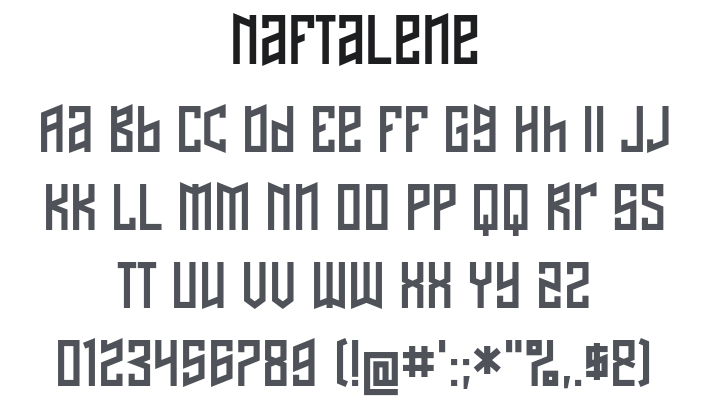
Naftalene Font
About Naftalene
Naftalene is a razor-sharp, bold geometric industrial display typeface — tightly spaced letterforms with knife-edge corners and uncompromising straight lines that project cold, mechanical authority with absolute precision. Its dense, compact stance makes it a commanding headline blaster. Perfect for cyberpunk designs, industrial branding, sci-fi game titles, tech posters, and any headline that needs to hit hard with surgical, no-nonsense intensity.